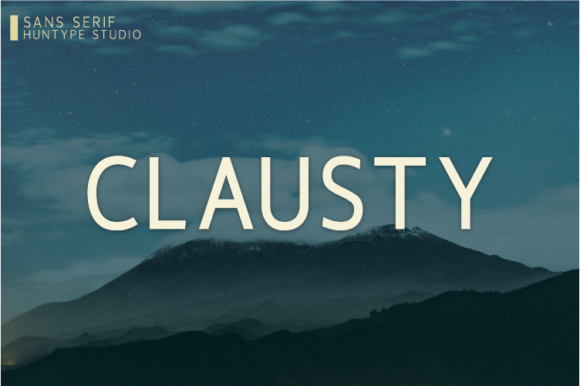
Introducing Clausty Font: The Ultimate Minimal Sans Serif Font for Your Creative Projects
In the world of typography, fonts play a crucial role in conveying messages, evoking emotions, and creating visual identities. When it comes to selecting the perfect font for your creative projects, the options can be overwhelming. However, if you’re looking for a minimal and neat sans serif font that can elevate your designs, look no further than Clausty Font. In this article, we’ll explore the features, benefits, and uses of Clausty Font, and why it’s an incredibly valuable asset to your font library.
What is Clausty Font?
Clausty Font is a modern sans serif font designed to provide a clean and minimalist aesthetic to your designs. Its simple yet elegant design makes it an ideal choice for a wide range of creative projects, from branding and advertising to digital media and publishing. Clausty Font is characterized by its neat lines, balanced proportions, and subtle curves, which give it a friendly and approachable feel.
Key Features of Clausty Font
- Minimalist Design: Clausty Font boasts a clean and minimalist design that ensures your message takes center stage.
- Sans Serif: The font’s sans serif design provides a modern and sleek look that’s perfect for digital media.
- Neat Lines: Clausty Font’s lines are carefully crafted to provide a sense of elegance and sophistication.
- Balanced Proportions: The font’s balanced proportions ensure that your text is easy to read and understand.
- Subtle Curves: Clausty Font’s subtle curves add a touch of friendliness and approachability to your designs.
Benefits of Using Clausty Font
So, why should you choose Clausty Font for your creative projects? Here are just a few benefits of using this versatile font:
- Elevate Your Designs: Clausty Font has the potential to elevate any creation, from simple text-based designs to complex visual projects.
- Versatility: Clausty Font is suitable for a wide range of creative projects, including branding, advertising, digital media, and publishing.
- Improved Readability: The font’s clean design and balanced proportions ensure that your text is easy to read and understand.
- Unique Identity: Clausty Font can help you establish a unique visual identity for your brand or project.
How to Use Clausty Font
Clausty Font is an incredibly versatile font that can be used in a variety of creative projects. Here are just a few ideas to get you started:
- Branding and Advertising: Use Clausty Font to create a unique visual identity for your brand or product.
- Digital Media: Clausty Font is perfect for digital media, including social media graphics, blog posts, and website designs.
- Publishing: Use Clausty Font for book covers, magazine layouts, and other publishing projects.
- Graphic Design: Clausty Font can be used in a variety of graphic design projects, from brochures to posters.
Tips for Using Clausty Font Effectively
Here are a few tips for using Clausty Font effectively in your designs:
- Pair with Other Fonts: Clausty Font can be paired with other fonts to create a unique and visually appealing design.
- Experiment with Colors: Clausty Font looks great in a variety of colors, so don’t be afraid to experiment and find the perfect hue for your design.
- Use Different Sizes: Clausty Font can be used in a range of sizes, from small captions to large headlines.
In conclusion, Clausty Font is a minimal and neat sans serif font that’s perfect for a wide range of creative projects. Its clean design, balanced proportions, and subtle curves make it an incredibly valuable asset to your font library. Whether you’re a graphic designer, marketer, or publisher, Clausty Font has the potential to elevate your designs and help you achieve your creative goals.